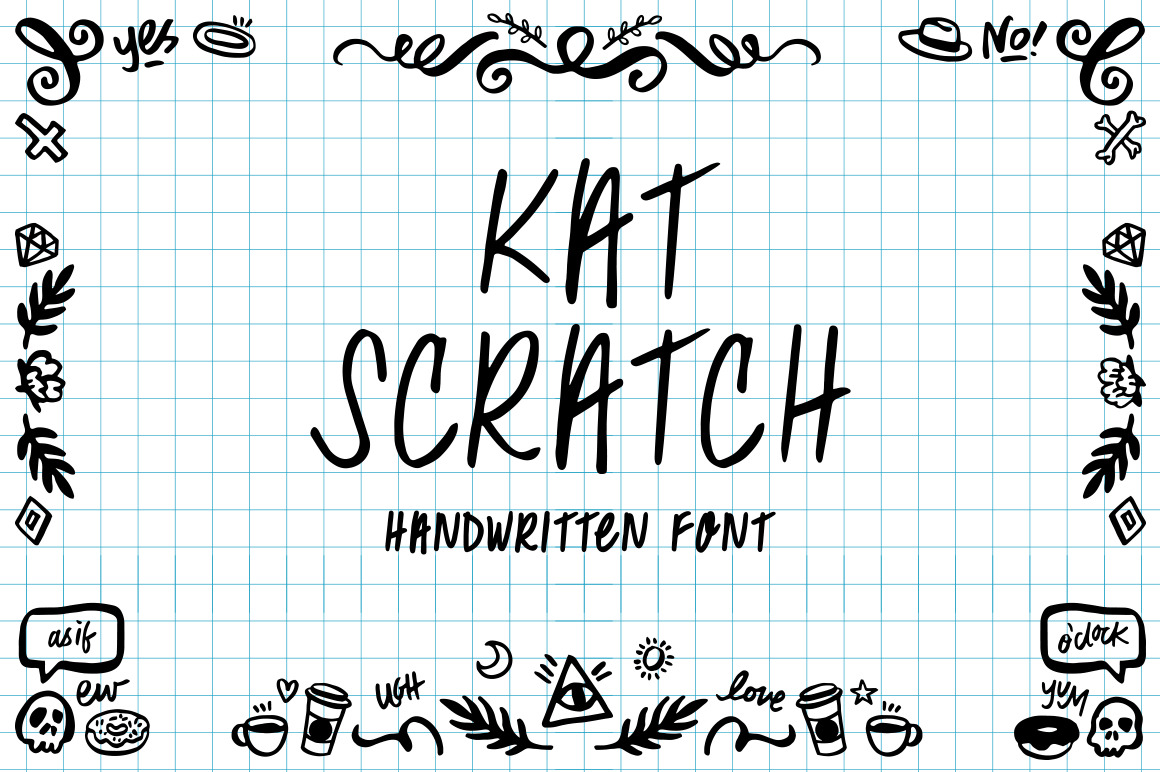
Kat Scratch Font
This is my first font - I created it from my personal note taking handwriting. It comes in regular and bold. The download also includes a dingbat font - of swirls, leaves, doodles and other images that you might find in the margins of my notebook.
The upper and lower case letters match in the Regular and Bold fonts.